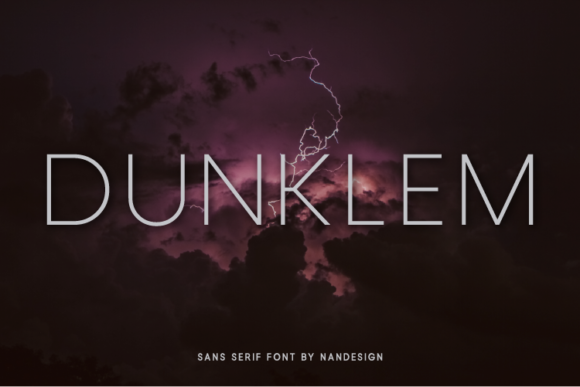
Introducing Dunklem – the font that will revolutionize your designs! This sans serif masterpiece, brought to you by the creative minds at Nan Design, is not just a font; it's an expression of elegance and sophistication. With its clean lines and minimalist style, Dunklem seamlessly adapts to any design concept, making it the epitome of versatility.
Whether you're crafting a striking logo, designing an unforgettable website, or simply adding a touch of allure to your creative projects, Dunklem is the font that will elevate your work to new heights. Its timeless appeal transcends trends, ensuring that your designs remain captivating and memorable for years to come.
Dunklem's versatility knows no bounds. It effortlessly complements a vast array of design styles, from the classic and traditional to the contemporary and cutting-edge. Its clean and simple aesthetic allows it to blend harmoniously with any design, ensuring that your message shines through with unparalleled clarity.
Experience the transformative power of Dunklem today and elevate your designs to the realm of the extraordinary. With its captivating curves and alluring simplicity, this font will inspire you to create masterpieces that resonate with your audience, leaving an unforgettable mark on their hearts and minds.